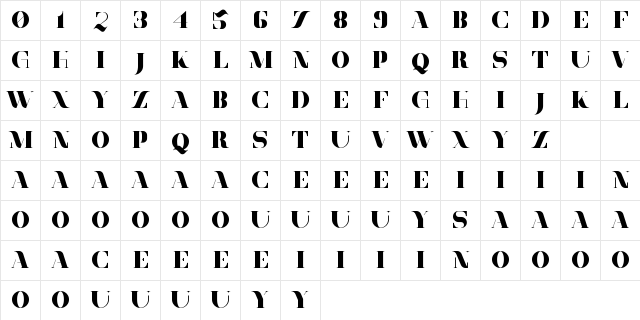
Tamira Regular
Design Context for Tamira
Tamira is a composed and adaptable typeface that performs quietly and consistently across a wide range of design contexts.